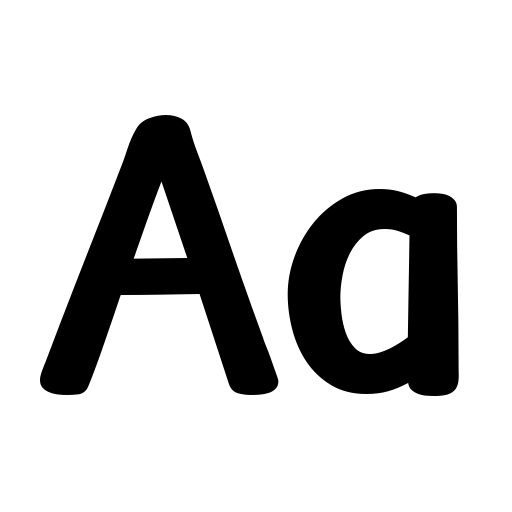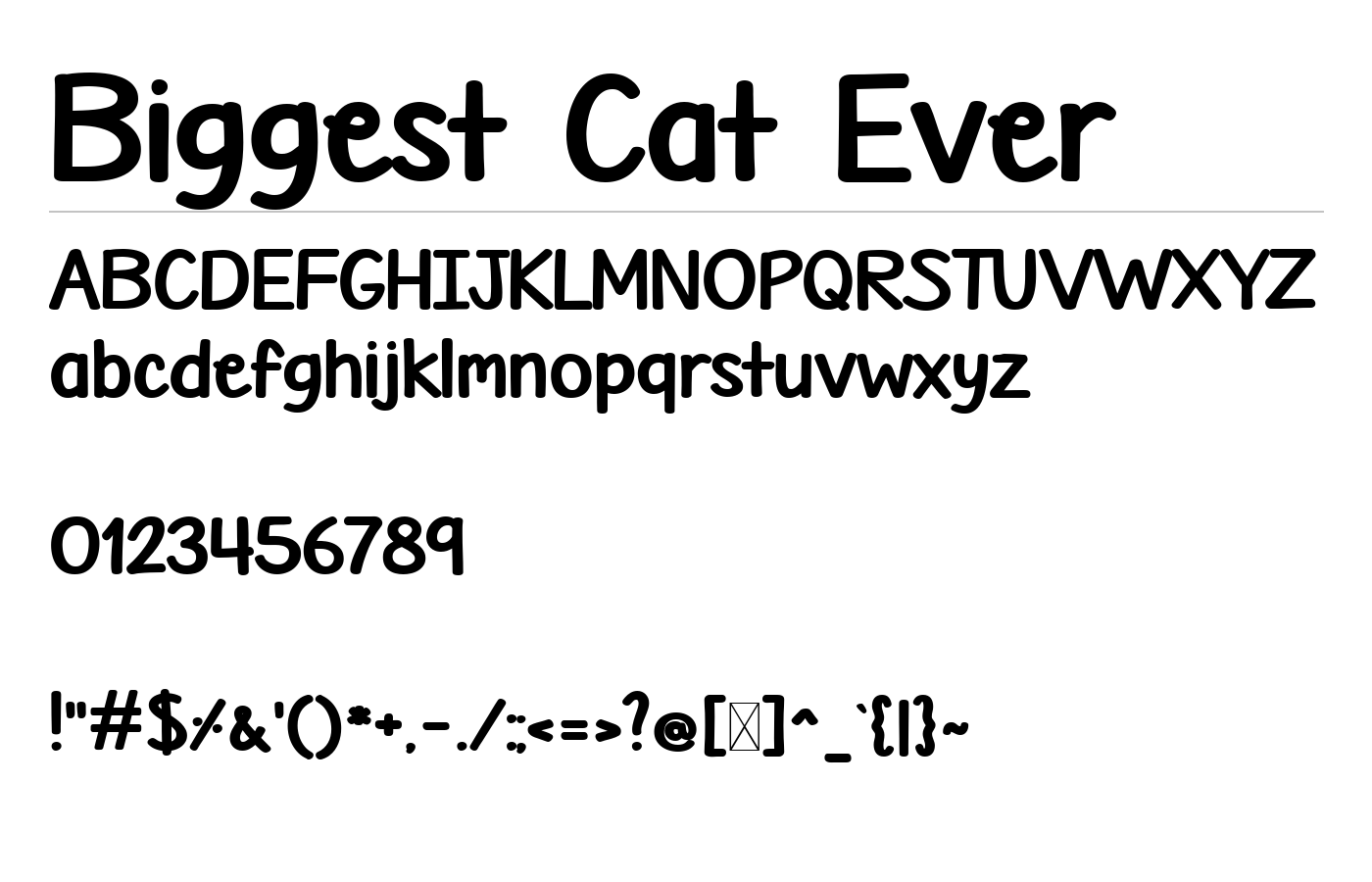
Biggest Cat Ever is a playful and friendly sans serif font with a casual, hand-drawn feel. Its rounded, slightly irregular letterforms and moderate weight give it a warm, approachable personality that works great for children’s designs, informal branding, and fun headlines. This font shines where a relaxed, cheerful tone is needed, making it ideal for posters, packaging, and any project seeking a touch of whimsy.
Biggest Cat Ever Font
About Biggest Cat Ever Font